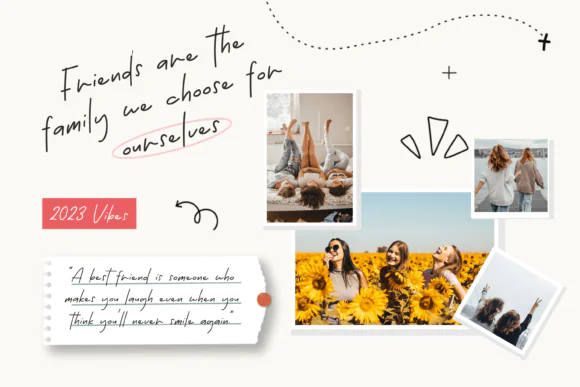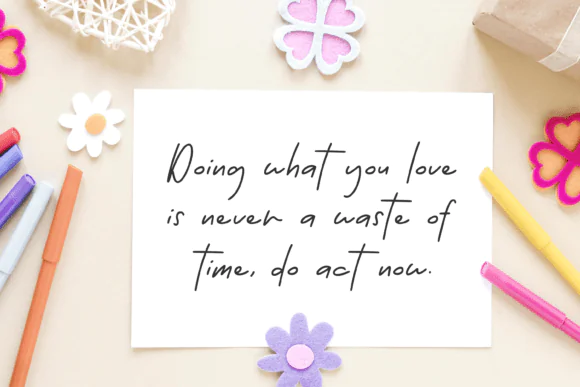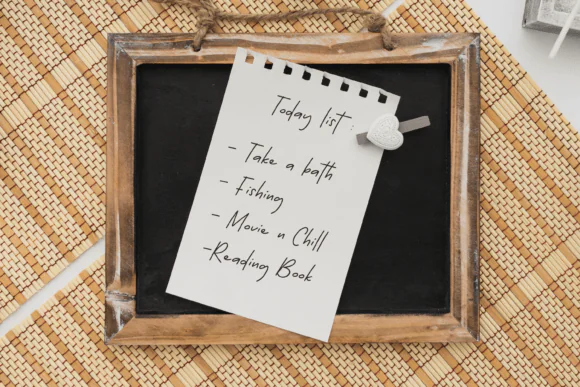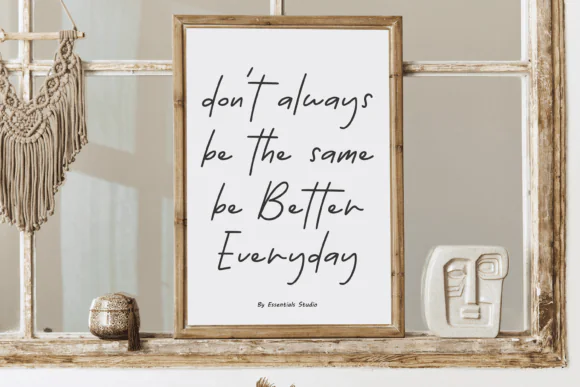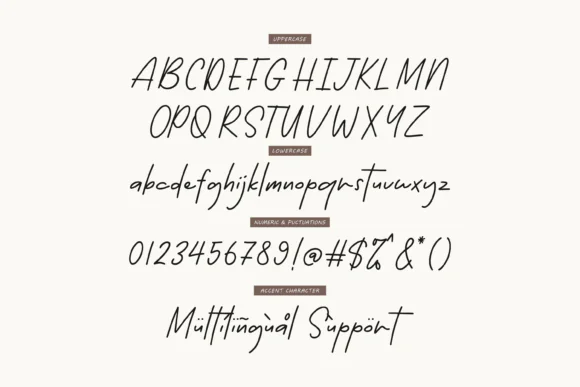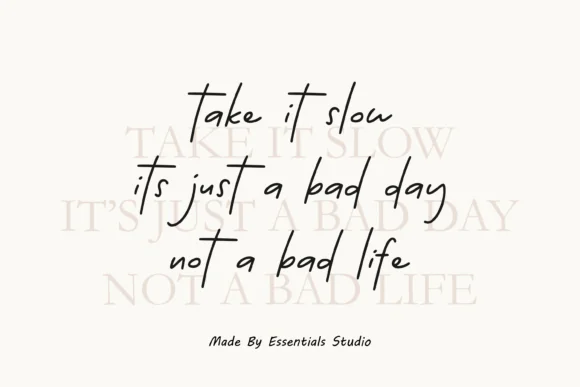
Essentials Handwriting Font | Sleek Versatile Handwritten Typeface for Quotes, Birthday Designs, Invitations, Books, Planners, Crafts & Creative Projects
Add a clean, stylish, and personal handwritten touch to your designs with Essentials Handwriting Font, a sleek and versatile typeface created for a wide range of creative projects. With its natural handwriting-inspired style, this font is perfect for designers, crafters, content creators, small business owners, and anyone who wants to make their text feel warm, expressive, and visually appealing.
Essentials Handwriting works beautifully for quote designs, birthday layouts, invitations, books, planners, greeting cards, social media graphics, product labels, stickers, printable wall art, journals, scrapbooking, and everyday craft projects. Its flexible handwritten look makes it suitable for both playful and elegant designs, helping your projects feel personal without losing readability.
Whether you are creating a birthday invitation, a planner page, a motivational quote, a handmade product label, or a stylish book layout, Essentials Handwriting helps bring your creative vision to life with a soft, modern, and approachable handwritten style.
• Quote designs
• Birthday layouts
• Invitations
• Books and covers
• Digital planners
• Printable planners
• Craft projects
• Greeting cards
• Stickers and labels
• Journals and notebooks
• Scrapbooking
• Product packaging
• Printable wall art
• Handmade business branding
Sleek, handwritten, versatile, modern, clean, stylish, personal, warm, creative, friendly, readable, natural, expressive, simple, and charming.